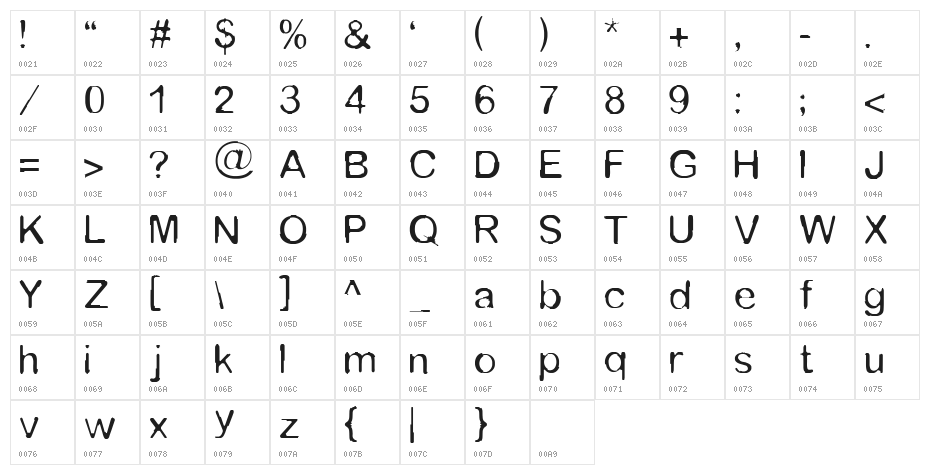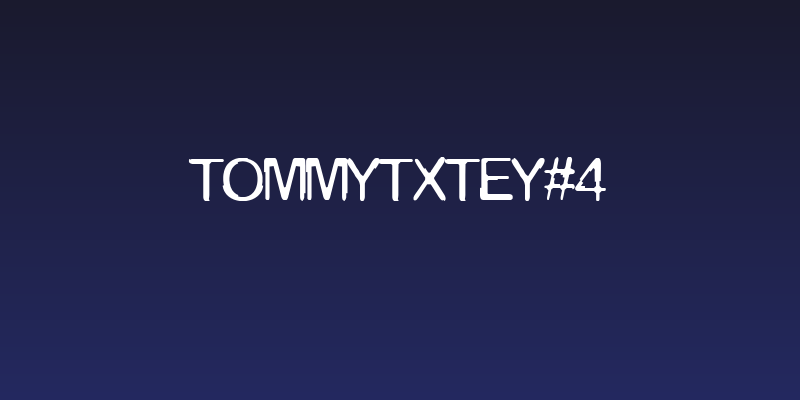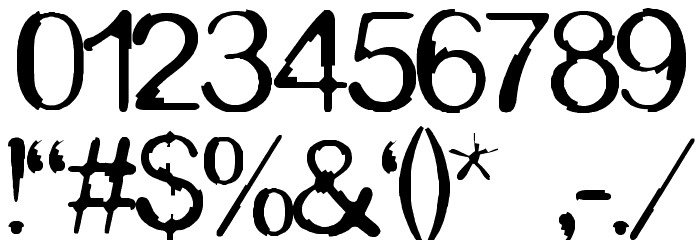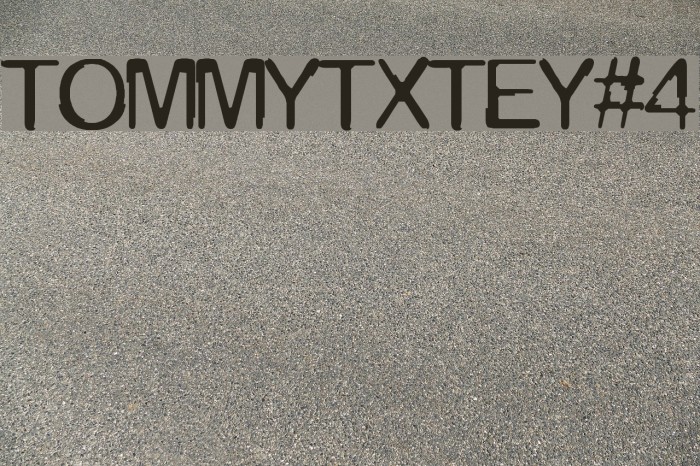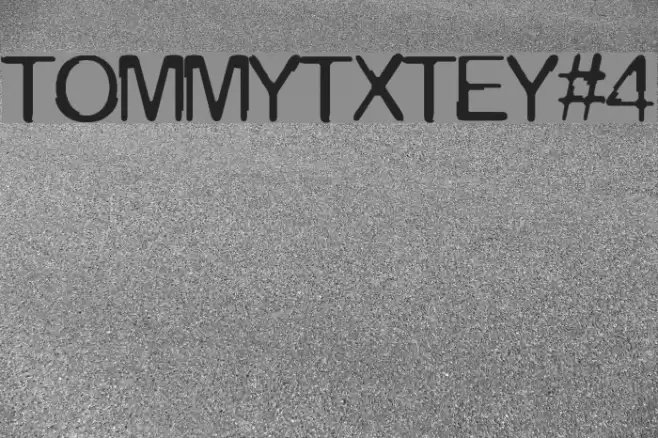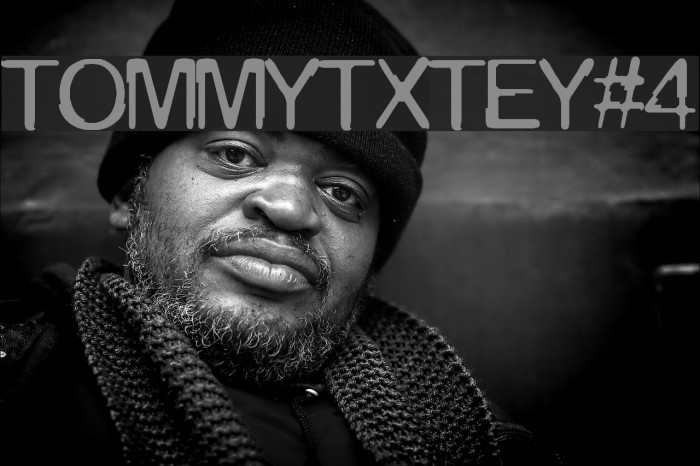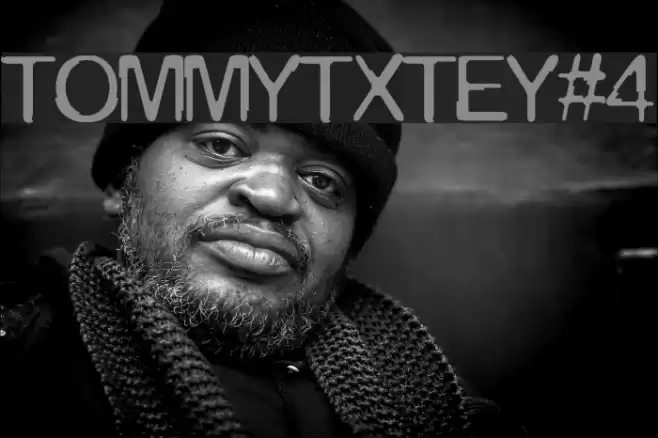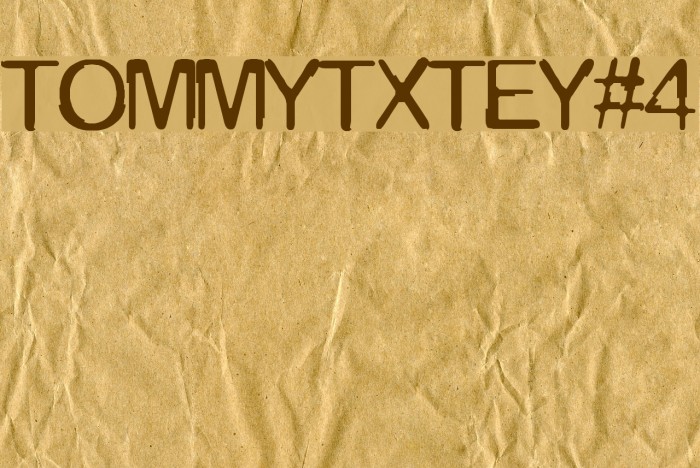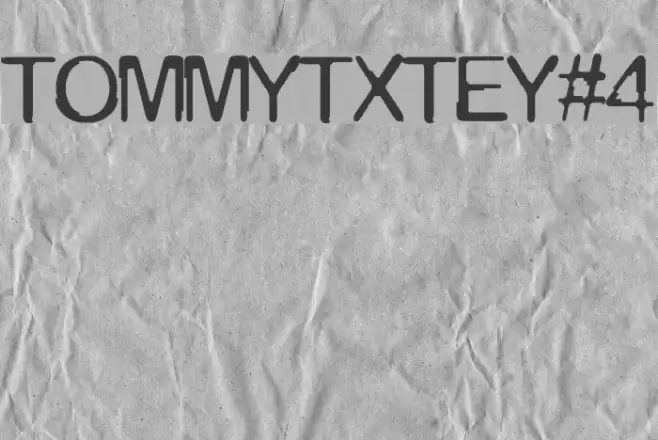
TOMMYTXTEY#4 Font
TOMMYTXTEY#4 Description
This font features a bold and dynamic style with a distressed, grunge-like texture that gives it a unique and edgy appearance. The uppercase and lowercase letters are designed with a consistent width, creating a uniform look across the alphabet. The numerals and special characters maintain the same rugged aesthetic, making them stand out. The font's boldness is evident in the thick strokes, while the irregular edges add a touch of unpredictability and creativity. This style is perfect for projects that require a strong visual impact and a modern, artistic flair.
| Overall Style | Modern, Edgy, Grunge |
| Proposed Projects | Ideal for album covers, posters, streetwear branding, and edgy graphic design projects. |